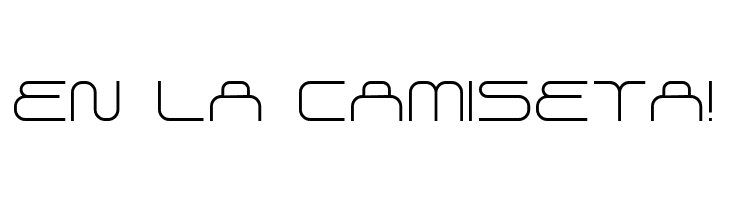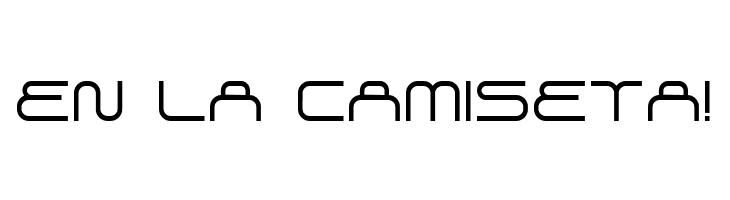
Buggy Trick Font
- Font: Buggy Trick
( Font by Sven Stuber - www.superlooper.de )
A futuristic, minimalist font with thin, geometric lines and a sleek design.